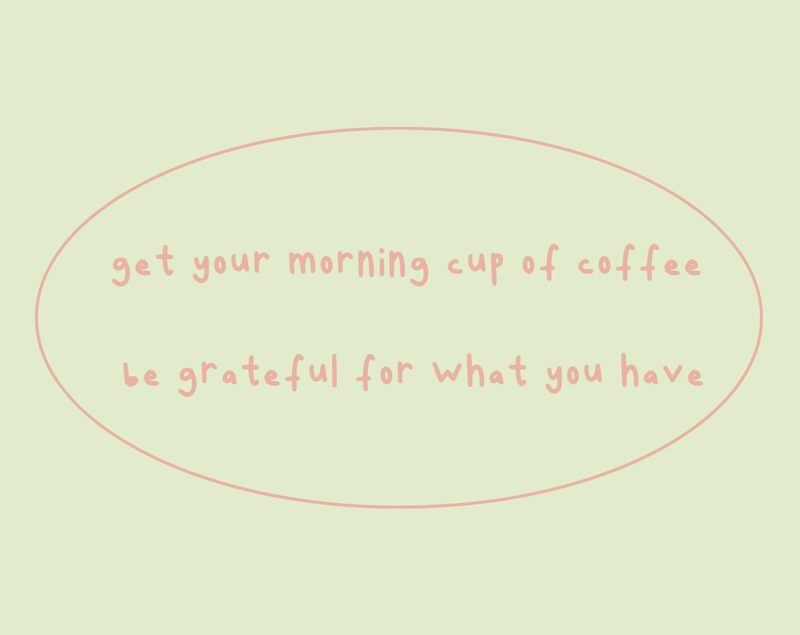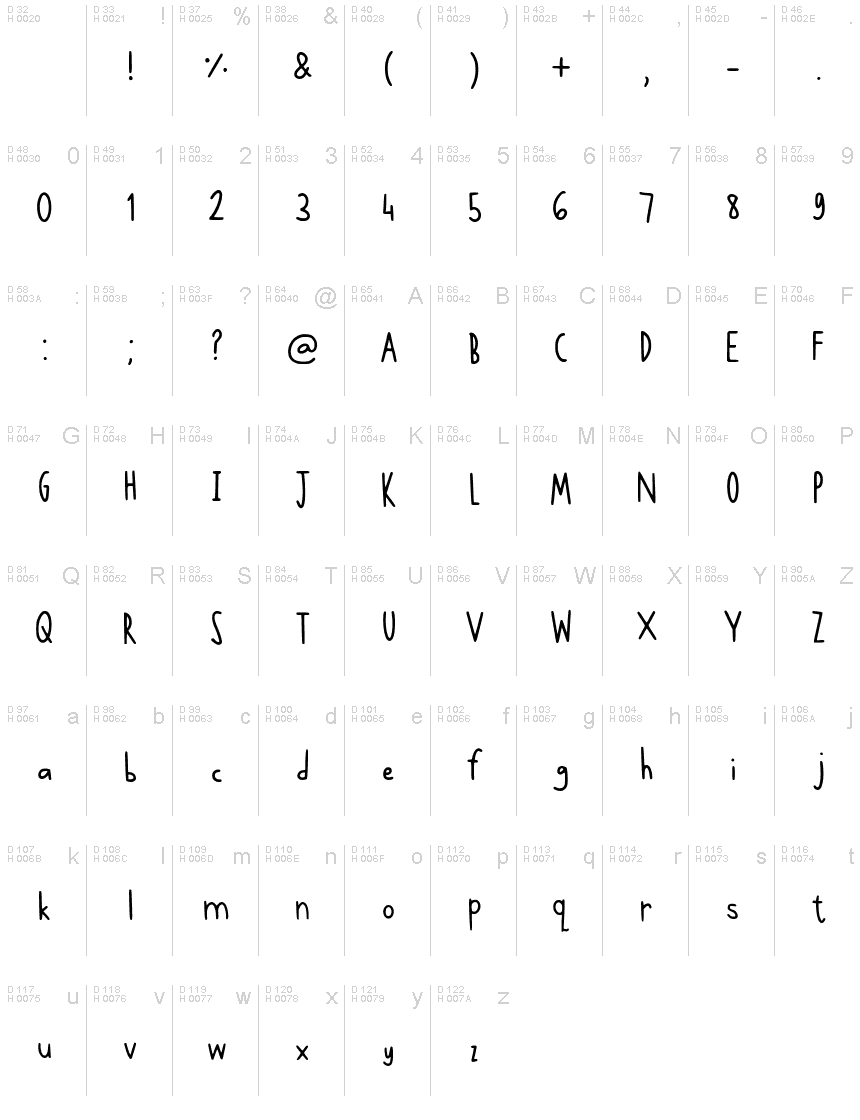
Aegyohomelight Regular
Introducing the Aegyohome Light font; a beautiful handwritten font designed by Aegyo.home. Its light weight makes it perfect for creating logos, invitations, quotes and more! With its unique style and versatility, Aegyohome Light is sure to make your projects stand out.